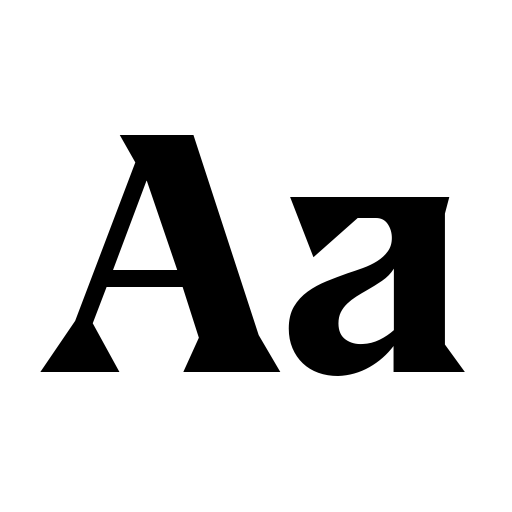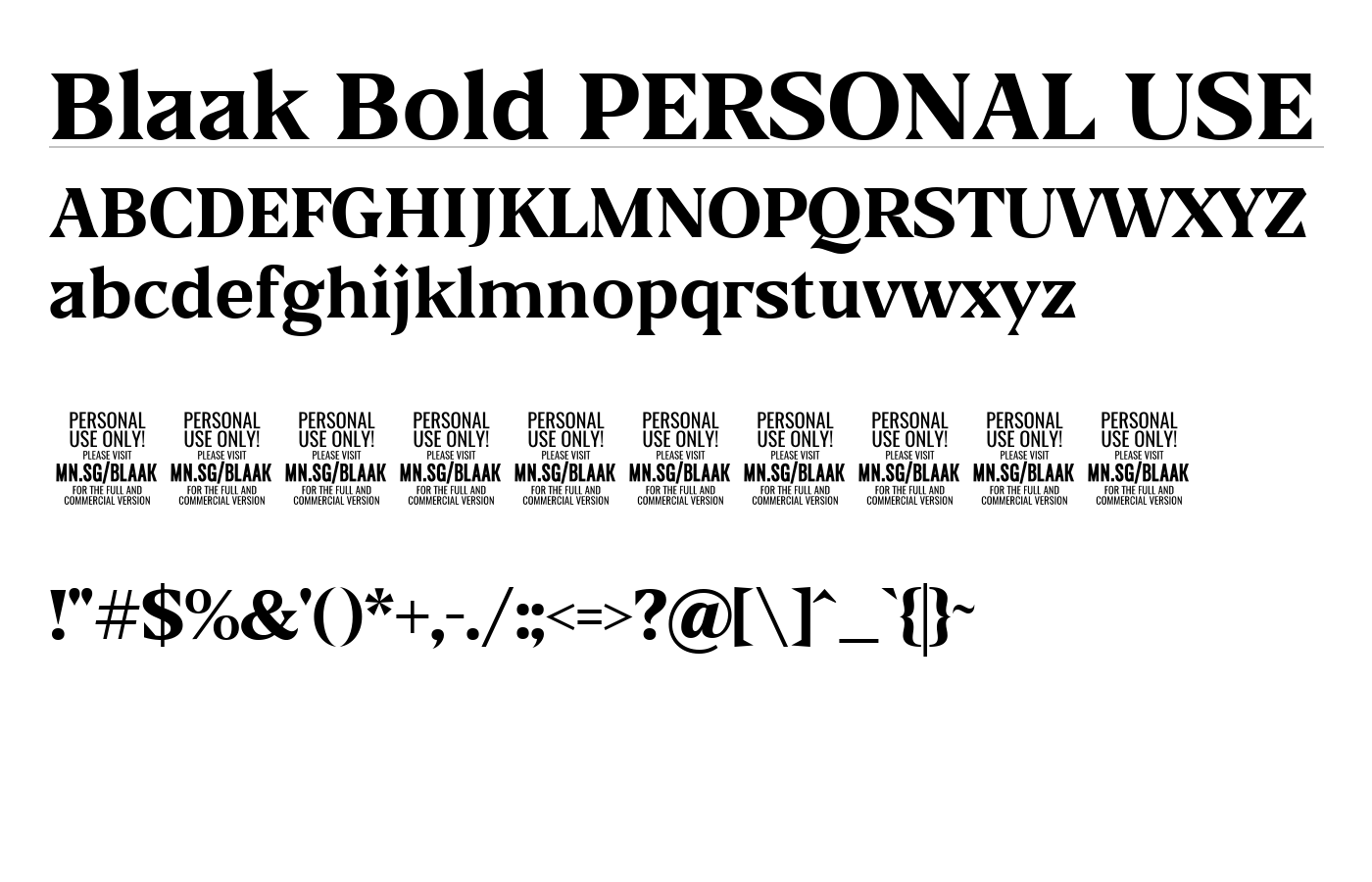
Blaak Regular is a bold serif font with a strong, classic presence characterized by sharp, high-contrast strokes and distinctive bracketed serifs. Its sturdy letterforms and slightly condensed width create a confident and elegant look, making it ideal for headlines, logos, and editorial designs where a timeless and authoritative style is desired. This font works well in luxury branding and print projects that need a sophisticated yet impactful typographic voice.
Blaak Regular PERSONAL USE Font
About Blaak Regular PERSONAL USE Font
| Font family | Blaak Regular PERSONAL USE Font |
| Designer | Unidaas & Mans Greback |